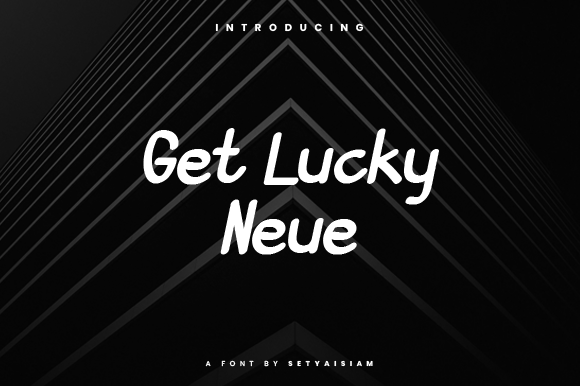
Introducing Get Lucky Neue Font - A Typographic Masterpiece for Maximum Impact!
Buckle up for an extraordinary typographic journey with Get Lucky Neue Font, the display font that will ignite your creativity and leave an unforgettable mark on your designs. This remarkable font, lovingly crafted by the skilled hands of setyaisiam, is a true game-changer, empowering you to transform ordinary designs into captivating masterpieces that steal the show.
Get Lucky Neue Font is not just a collection of letters; it's an arsenal of visual artistry, meticulously designed to evoke emotions and convey messages with unparalleled power. Whether you're a seasoned designer or just starting out, this display font will become your trusty companion, elevating your work to new heights of visual splendor.
Immerse yourself in the captivating world of Get Lucky Neue Font, where every letterform dances with a bold and confident flair. It's a font that demands attention, making your designs impossible to ignore. Whether you're creating eye-catching headlines, striking logos, or captivating social media graphics, Get Lucky Neue Font will add an instant touch of charisma to your creations.
But don't just take our word for it! Step into the realm of typography enthusiasts who have already fallen under the spell of Get Lucky Neue Font. They rave about its ability to transform their designs, adding a touch of magic that captivates audiences and leaves a lasting impression.
So, why settle for ordinary fonts when you can unleash the extraordinary power of Get Lucky Neue Font? This is your chance to unlock a world of typographic possibilities, where your designs will shine brighter than ever before. Embrace the bold, the captivating, and the unforgettable with Get Lucky Neue Font!